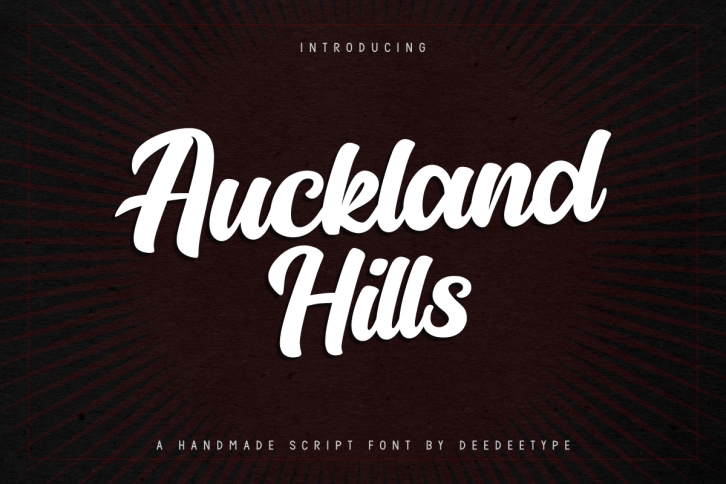
Auckland Hills is a gorgeous and bold handwritten font, crafted to give your headlines and logotype projects a stylish touch. This font reads as strong, confident, and dynamic and can add tons of nostalgic character to your designs.